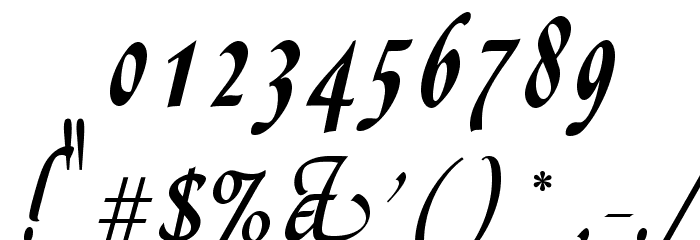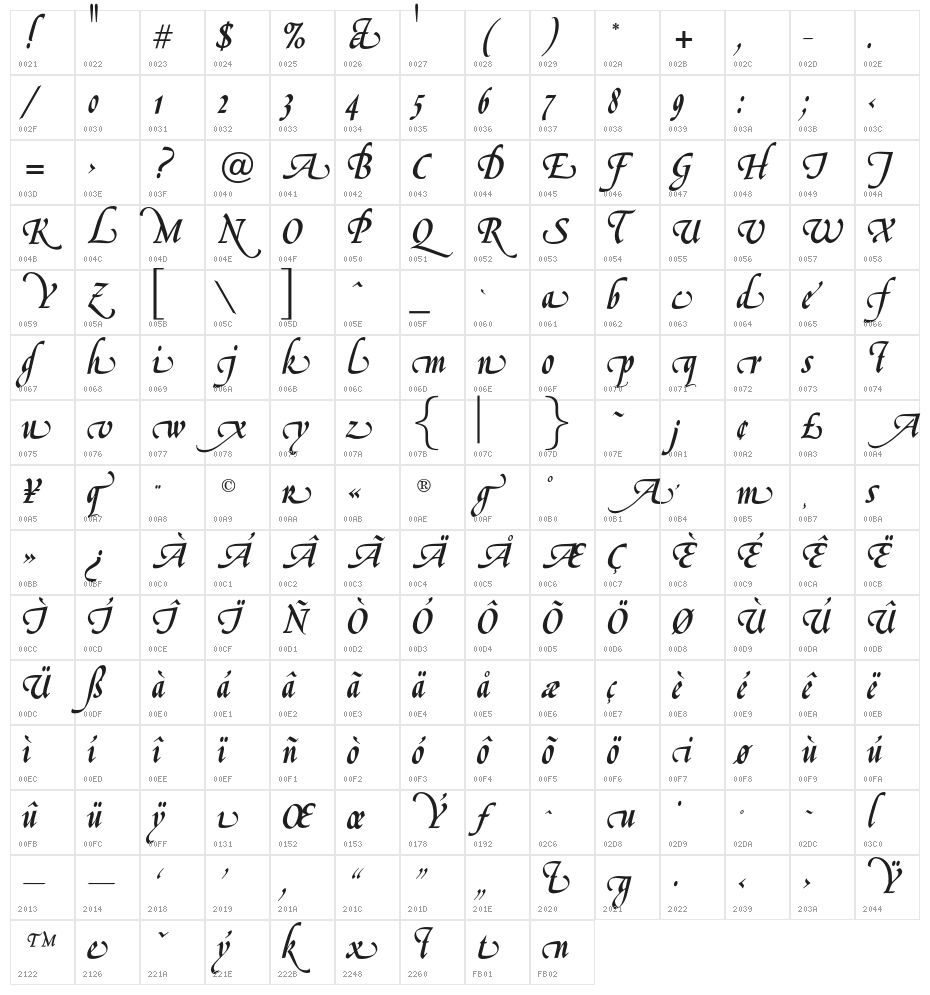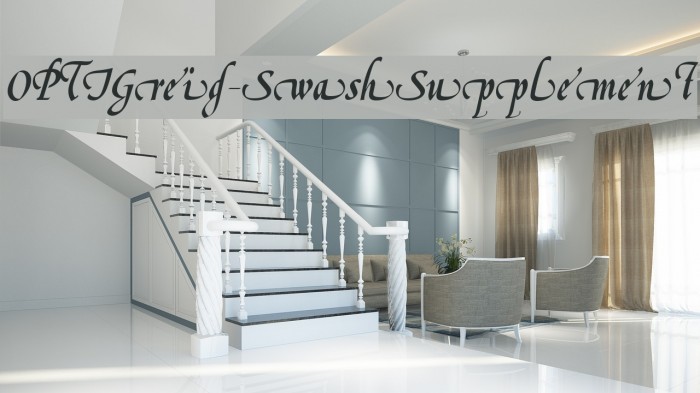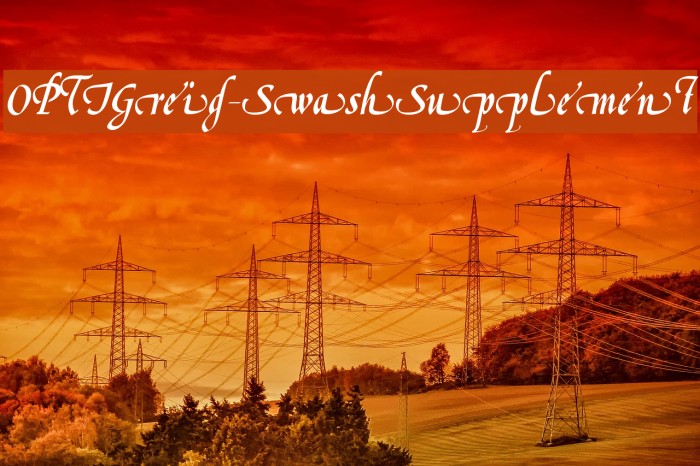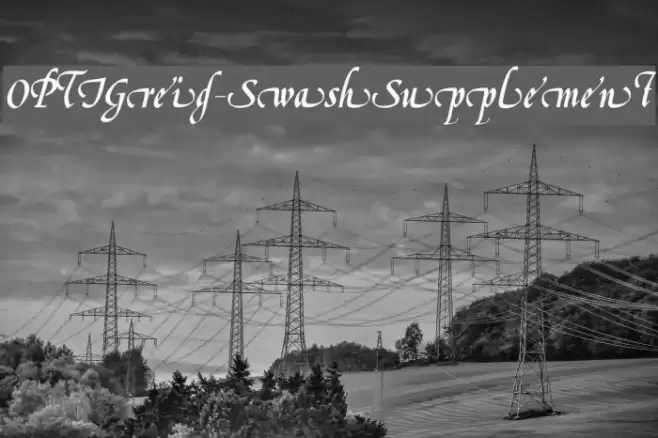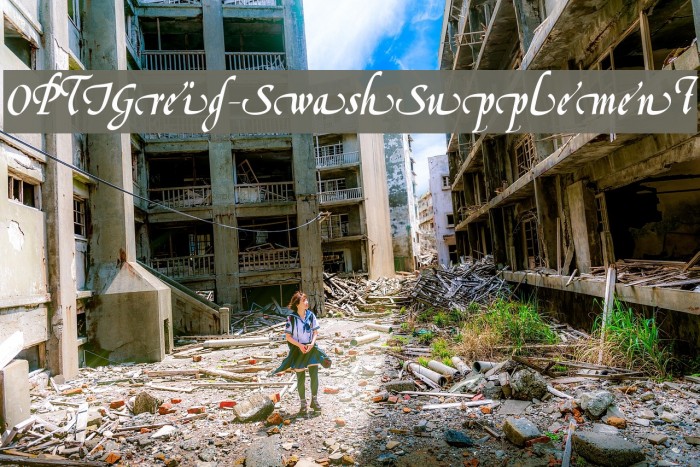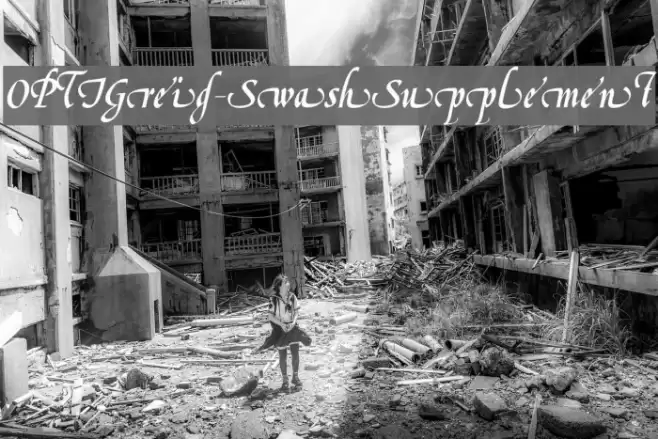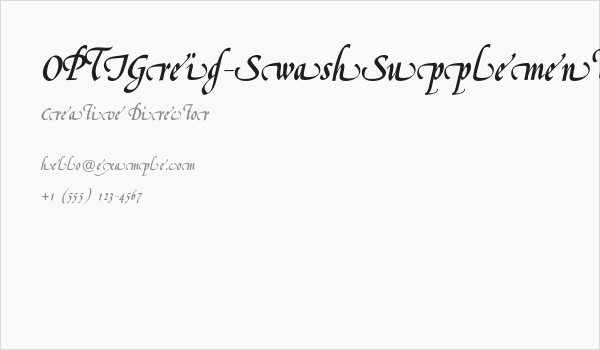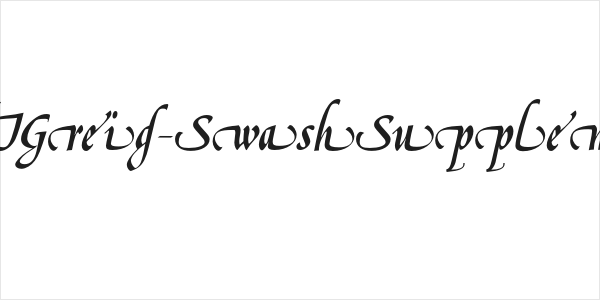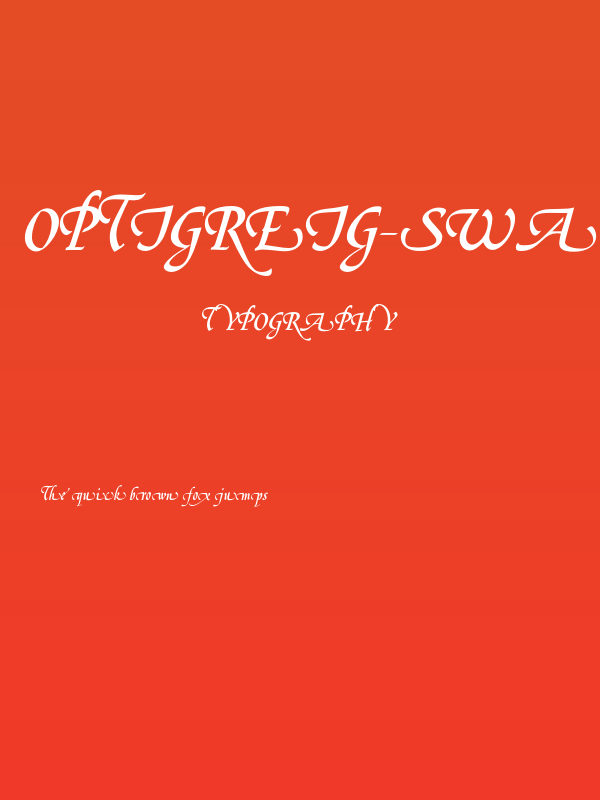
OPTIGreig-SwashSupplement Font
OPTIGreig-SwashSupplement Description
This font features an elegant and flowing script style, characterized by its sweeping curves and intricate swashes. The uppercase letters are particularly ornate, with flourishes that extend beyond the baseline and cap height, giving it a sophisticated and decorative appearance. The lowercase letters maintain a consistent flow, with some characters featuring subtle loops and tails. The numerals are bold and slightly italicized, complementing the overall style. Special characters are designed with the same attention to detail, ensuring a cohesive look across all glyphs. This font exudes a sense of grace and formality, making it suitable for upscale and refined applications.
| Use Case | Logos, Invitations, Decorative Text |
| Proposed Projects | Ideal for wedding invitations, luxury branding, elegant packaging, and formal event materials. |